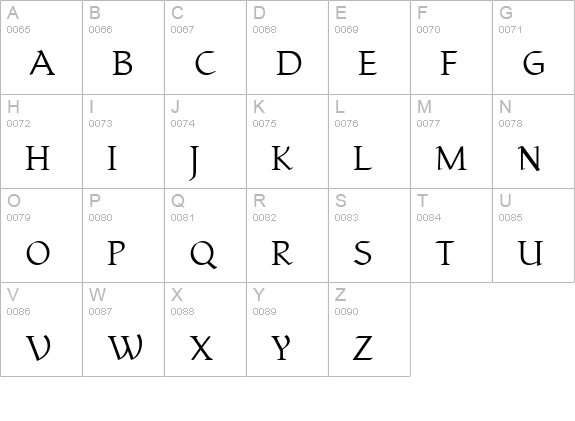
Yngreena Plain Font Details
Yngreena Plain font is a modern and versatile typeface that exudes elegance and sophistication. Its clean lines and simple yet stylish design make it perfect for a wide range of design projects, from branding to editorial layouts. Yngreena Plain font is ideal for creating a timeless and classic look, while also being versatile enough to be used in contemporary designs. With its sleek and professional appearance, Yngreena Plain font is sure to make your text stand out and capture the attention of your audience. Whether you're designing a logo, business card, website, or any other project, this font will add a touch of sophistication and refinement to your work. Best of all, Yngreena Plain font is completely free to download at FontsMarket.com, making it easily accessible for designers of all levels. Don't miss out on the opportunity to enhance your designs with this beautiful and stylish typeface. Download Yngreena Plain font today and take your projects to the next level!